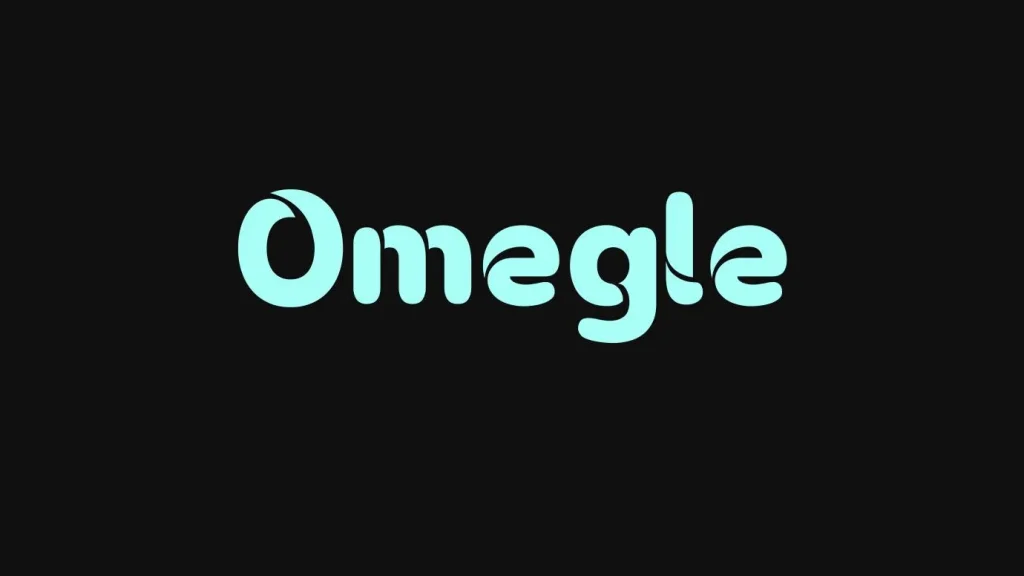
Omegle Font is a nice and attractive typeface that has the ability to create unique and interesting projects for clients. It is an elegant fancy design that has nice uppercase and lowercase characters designed by 177Studio.